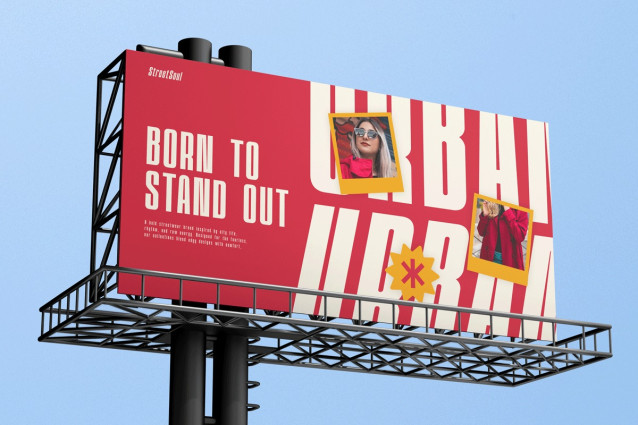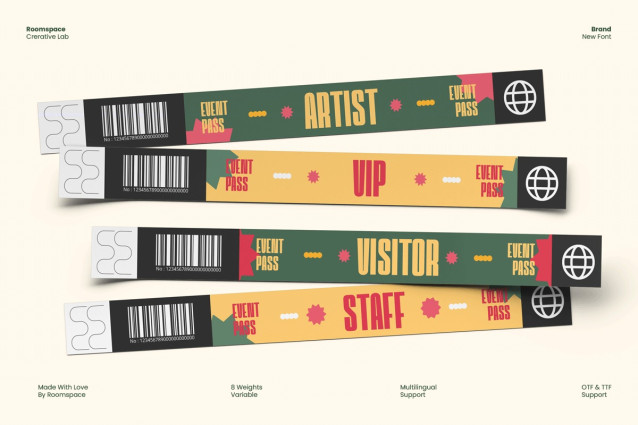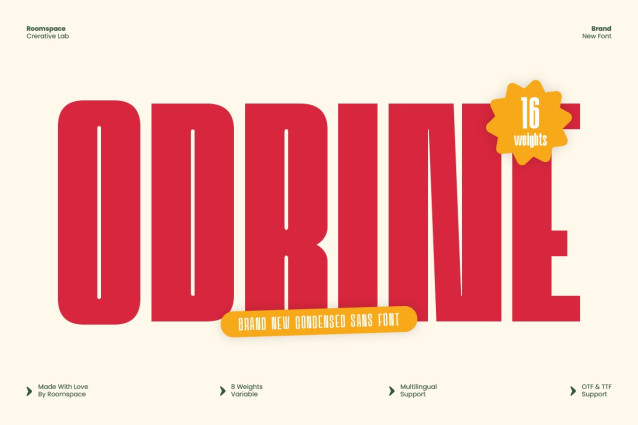
Odrine Font
Odrine Font is a condensed sans font that merges retro energy with modern clarity. It’s perfect for designers who love bold typography that stands out yet remains timeless. From logo marks to poster headlines, Odrine delivers a confident, stylish, and professional look that fits both print and digital projects.